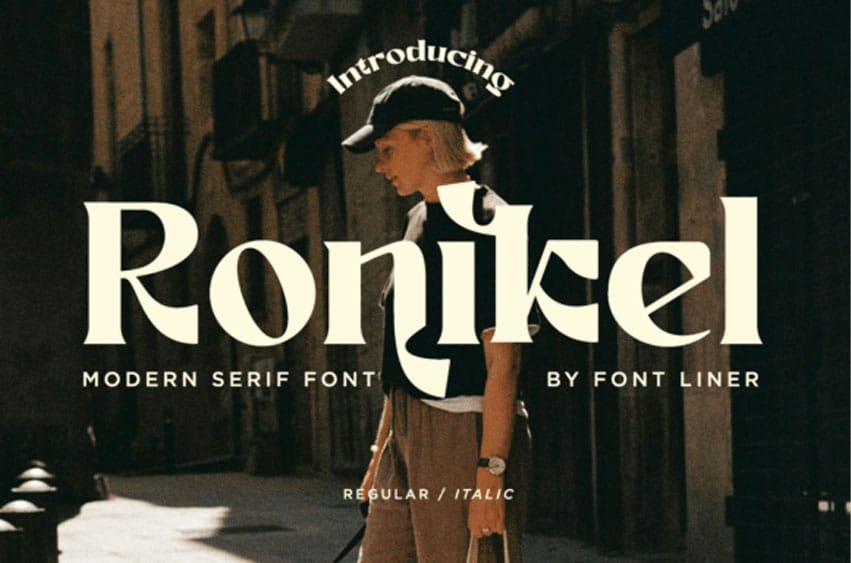
Ronikel Font is a modern serif font that combines timeless elegance with unique charm. Its graceful strokes, smooth serifs, and balanced proportions make it a sophisticated choice for a variety of projects.
This typeface is perfect for high-end branding, wedding invitations, editorial layouts, and fashion logos, blending traditional beauty with modern precision for a versatile and visually appealing vintage-modern aesthetic.